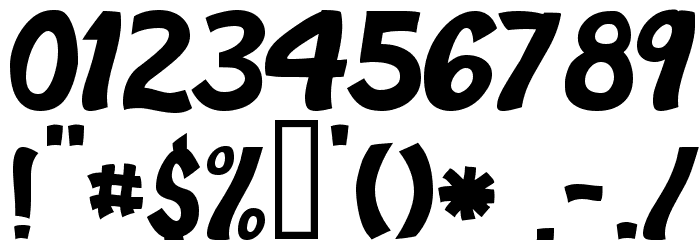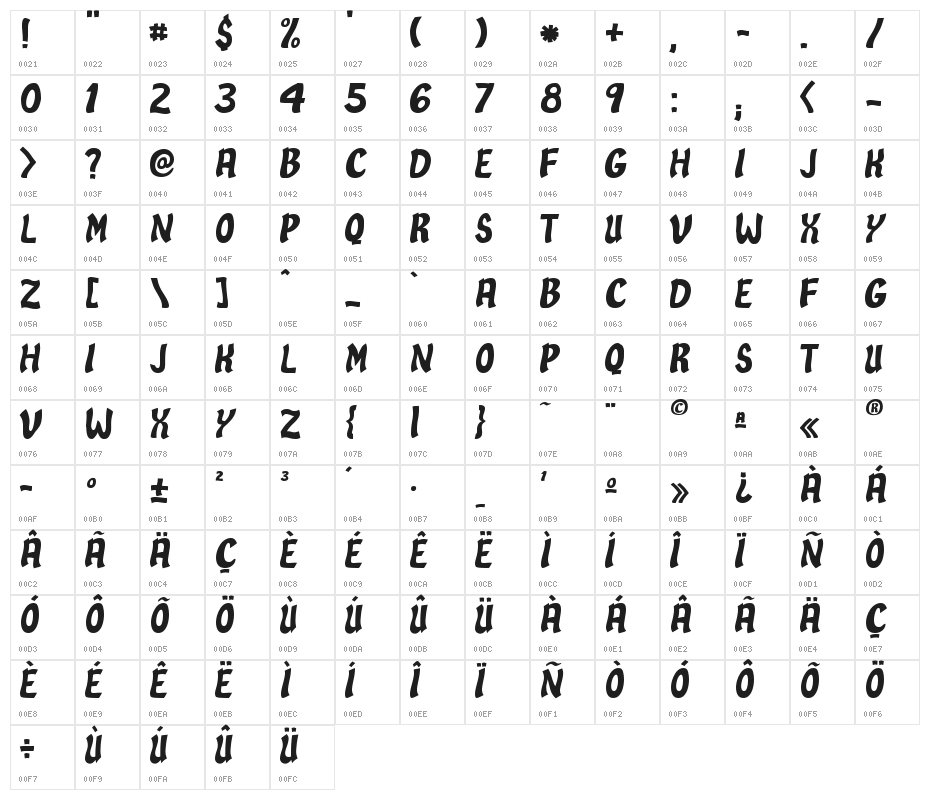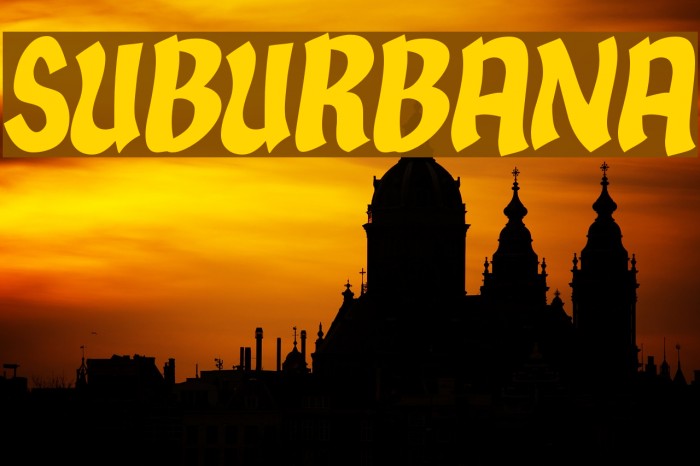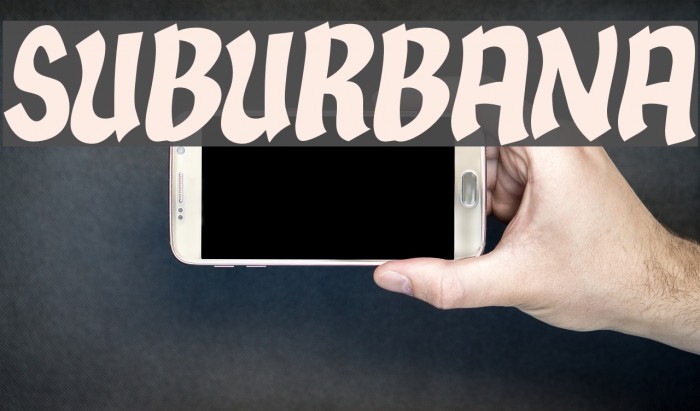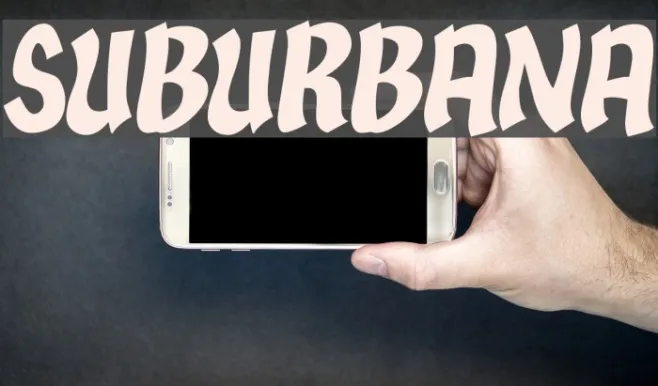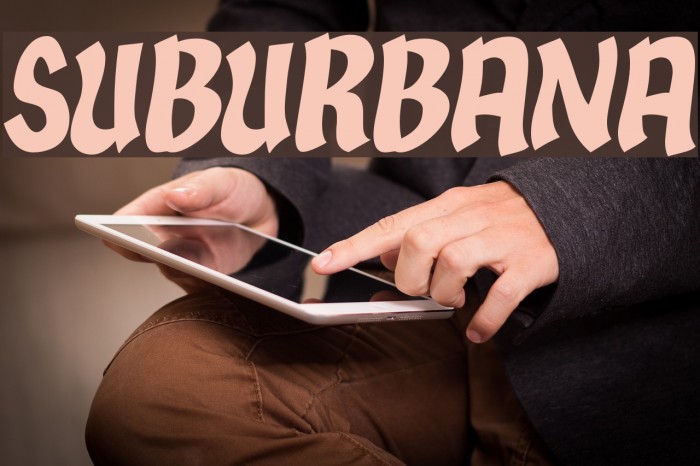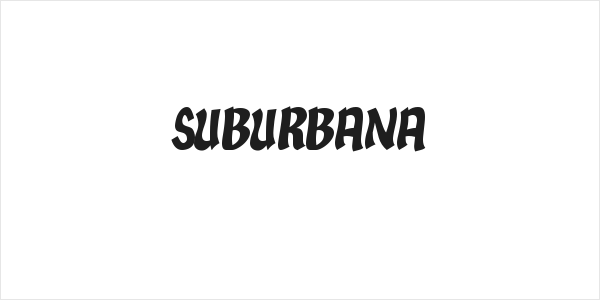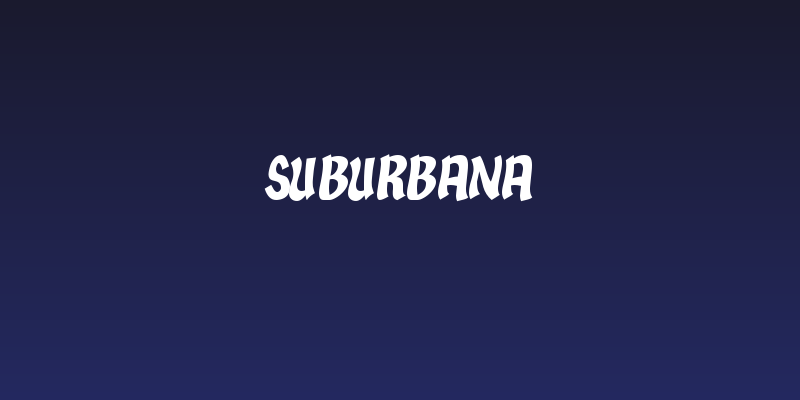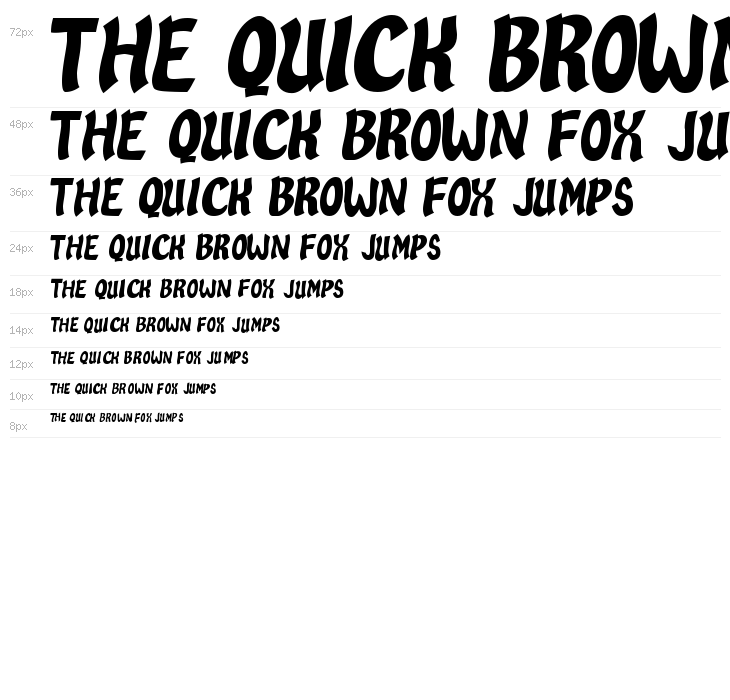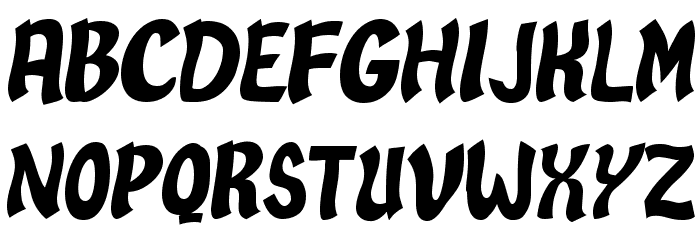
Suburbana Font
Suburbana Description
This font features a bold and dynamic style with a strong presence. The characters are slightly slanted, giving a sense of movement and energy. The strokes are thick and consistent, providing a robust and impactful appearance. The overall design is playful yet assertive, making it suitable for attention-grabbing headlines or branding materials. The letters are well-spaced, ensuring readability while maintaining a cohesive look. The numbers and special characters follow the same bold and energetic style, making them stand out effectively.
| Proposed Projects | Ideal for branding, posters, headlines, and any project requiring a strong visual impact. |